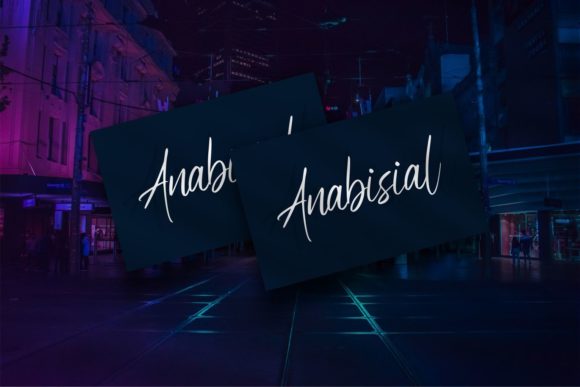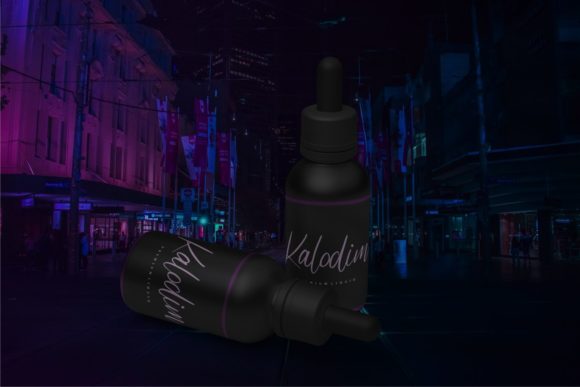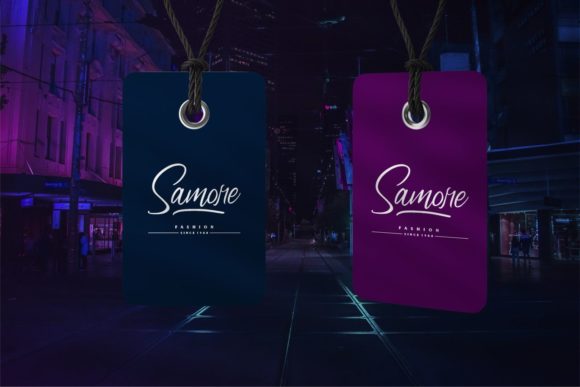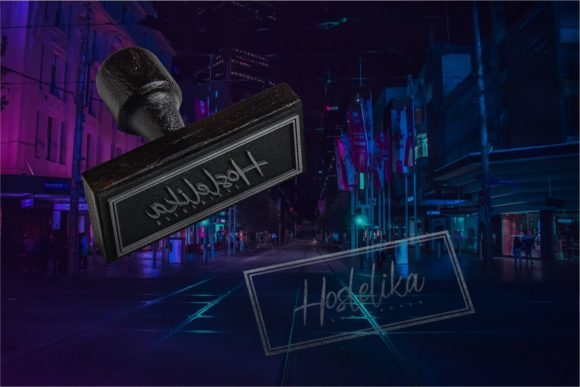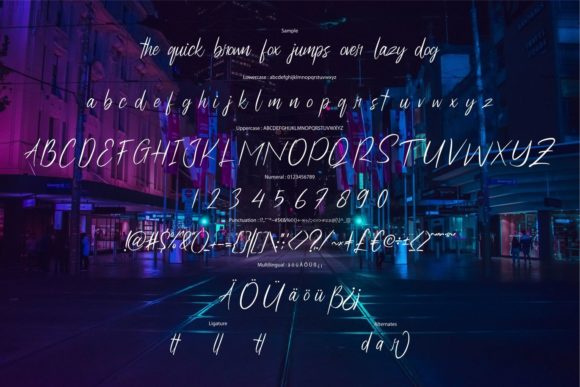
Introducing Amallaka Font: The Timeless Handwritten Font for Stunning Designs
Are you a designer or crafter looking for a font that can add a touch of elegance and sophistication to your designs? Look no further than Amallaka Font! This lovely and timeless handwritten font is perfect for creating eye-catching logos, branding, and quotes that will leave a lasting impression on your audience.
The Unique Charm of Amallaka Font
What sets Amallaka Font apart from other fonts is its unique and beautiful touch. Every letter has been carefully crafted to have its own distinct character, giving your designs a personal and handmade feel. The font’s handwritten style is both classic and modern, making it versatile enough to be used in a wide range of design projects.
Amallaka Font is an excellent choice for creating logos and branding materials. Its elegant and sophisticated style makes it perfect for businesses that want to convey a sense of luxury, creativity, and professionalism. Whether you’re designing a logo for a new startup or rebranding an existing company, Amallaka Font is sure to make your design stand out.
Add a Touch of Personality to Your Quotes
Amallaka Font is also perfect for creating stunning quotes and typography. The font’s unique and beautiful touch adds a touch of personality to your quotes, making them more engaging and shareable. Whether you’re designing a quote for social media, a blog post, or a marketing campaign, Amallaka Font is sure to make your message stand out.
Why Designers and Crafters Love Amallaka Font
So, why do designers and crafters love Amallaka Font? Here are just a few reasons:
• Unique and Beautiful Touch: Every letter has a unique and beautiful touch that adds a touch of personality to your designs.
• Timeless Style: Amallaka Font has a timeless style that never goes out of fashion, making it a great investment for designers and crafters.
• Versatile: The font is versatile enough to be used in a wide range of design projects, from logos and branding to quotes and typography.
• Elegant and Sophisticated: Amallaka Font has an elegant and sophisticated style that is perfect for businesses that want to convey a sense of luxury and professionalism.
How to Use Amallaka Font in Your Designs
Using Amallaka Font in your designs is easy! Here are a few tips:
• Pair it with Other Fonts: Amallaka Font looks great when paired with other fonts. Try pairing it with a bold font for a striking contrast.
• Use it for Headlines: Amallaka Font is perfect for headlines and titles. Use it to add a touch of elegance and sophistication to your designs.
• Experiment with Colors: Amallaka Font looks great in a variety of colors. Experiment with different colors to find the one that works best for your design.
In conclusion, Amallaka Font is a lovely and timeless handwritten font that is perfect for creating eye-catching logos, branding, and quotes. Its unique and beautiful touch adds a touch of personality to your designs, making them more engaging and shareable. Whether you’re a designer or crafter, Amallaka Font is a great addition to your font collection.